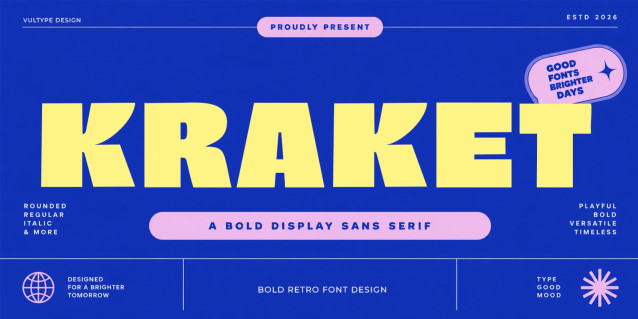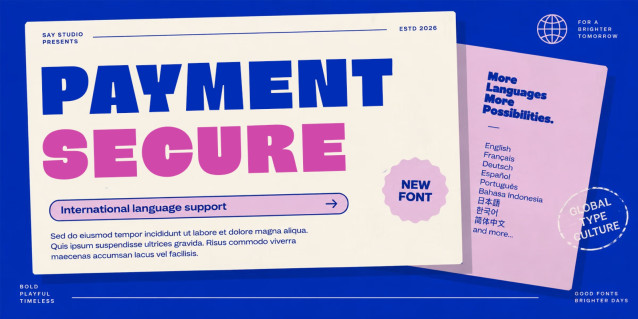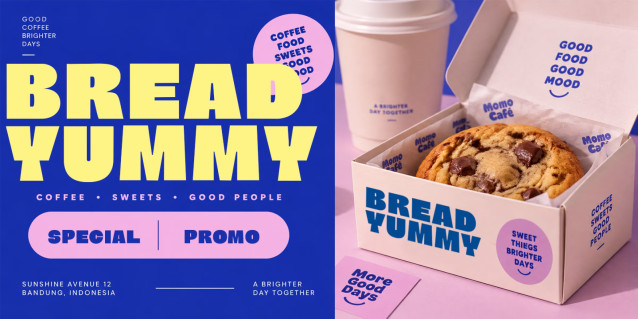
Kraken Font
Kraken is a bold retro display typeface built to make brands impossible to ignore. With its chunky proportions, strong geometric presence, and distinctive character shapes, Kraken brings an instant dose of confidence, energy, and nostalgia to any design.
Designed for big statements and bold identities, Kraken works beautifully across branding, packaging, posters, headlines, apparel, food & beverage, editorial, and advertising. Its heavy silhouette stays powerful even at a glance, making it especially effective when typography needs to become the main visual.